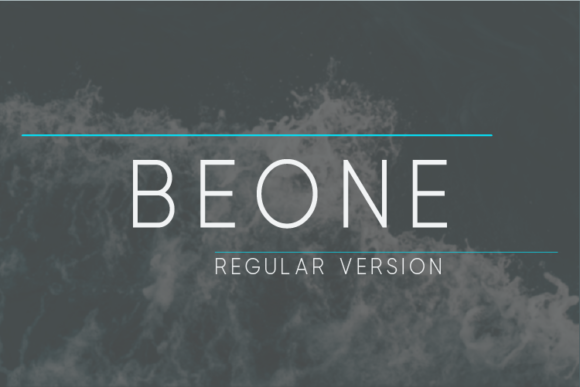
Give Your Designs a Fresh Twist with the Beone Regular Font
There’s nothing quite like the thrill of stumbling upon a new design inspiration – a perfectly crafted logo, a beautifully styled website, or a stunning visual identity that makes you go ‘aha!’. For designers, this moment is a spark that sets off a chain of creative ideas, and it’s exactly what we’re feeling with the Beone Regular Font.
This modern sans serif font is a masterclass in minimalism, drawing inspiration from the world of trendy branding and natural cosmetic packaging design. With its creamy neutral shades and clean lines, the Beone Regular Font is the perfect addition to any design project. Whether you’re working on a corporate identity, a product label, or a social media campaign, this font is sure to bring a touch of sophistication and professionalism to your work.
By incorporating the Beone Regular Font into your designs, you’ll not only elevate your aesthetic, but also create a consistent and recognizable visual language that resonates with your audience. So why not give it a try and see the impact it can make on your next project?
Beone Regular Font Key Features
- Font Family: Beone Regular, a clean and modern sans-serif font designed for digital use.
- Unique Characteristics: Beone Regular features a unique blend of geometric and organic shapes, resulting in a friendly and approachable aesthetic.
Beone Regular Font Review
First off, I have to say that Beone Regular Font has some great qualities that make it a solid choice for certain projects ✨. The font is clean, modern, and incredibly versatile. It’s perfect for use in headings, body text, and even as a title font.
- High legibility: Beone Regular is very easy to read, even at small font sizes.
- Wide language support: It includes a vast range of languages, making it a great choice for global projects.
- Simple, yet elegant design: The font’s minimalist style gives it a timeless quality that works well in various contexts.
However, there are a few limitations to consider ⚠️. While the font is highly legible, it can sometimes feel a bit too clean and lack character in certain contexts. Additionally, some users may find it difficult to distinguish from other similar fonts.
Overall, I think Beone Regular is a solid choice for designers who value simplicity and legibility. It’s not the most exciting font out there, but it gets the job done and looks great in the right context. I’d definitely consider using it for projects that require a clean, modern look.
Beone Regular font is perfect for:
- Modern websites and applications
- Corporate branding and marketing materials
- Editorial and publishing content